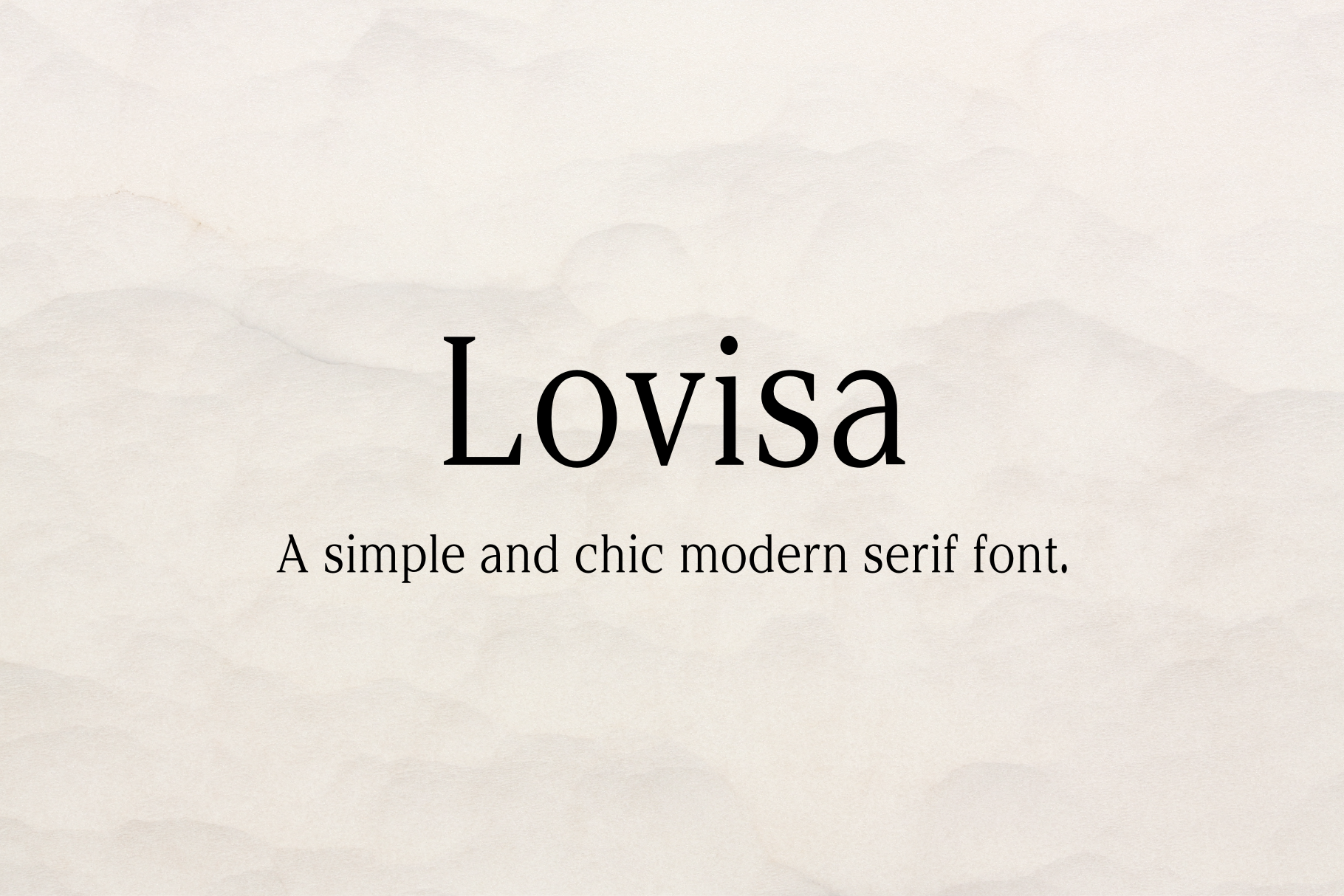
Lovisa Simple Serif Font
Lovisa - Modern and Chic Serif Font
The Lovisa Font is a simple and chic modern serif font. This font is perfect for a brand that is defined by simplicity with a hint of femininity.